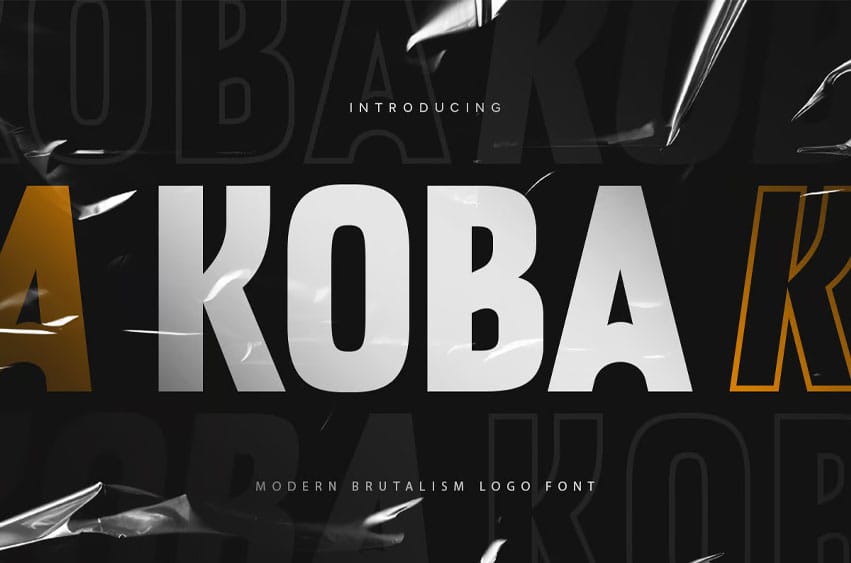
Koba Font is a modern brutalism logo font that features a minimalist and unique design, adding significant value to branding. This sans serif font allows for easy combinations to create various unique shapes in just seconds by choosing from multiple variations.
Its minimalist style makes it perfect for a wide range of applications, including branding projects, logos, poster designs, social media posts, advertisements, product packaging, product design, labels, photography, watermarks, invitations, stationery, and any other projects. Additionally, it offers a high level of legibility.
- Character set A-Z (Uppercase & Lowercase)
- Accented Characters (West Europe)